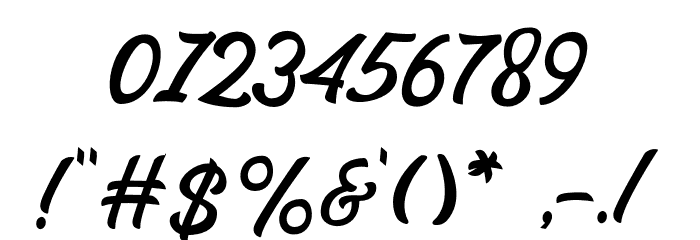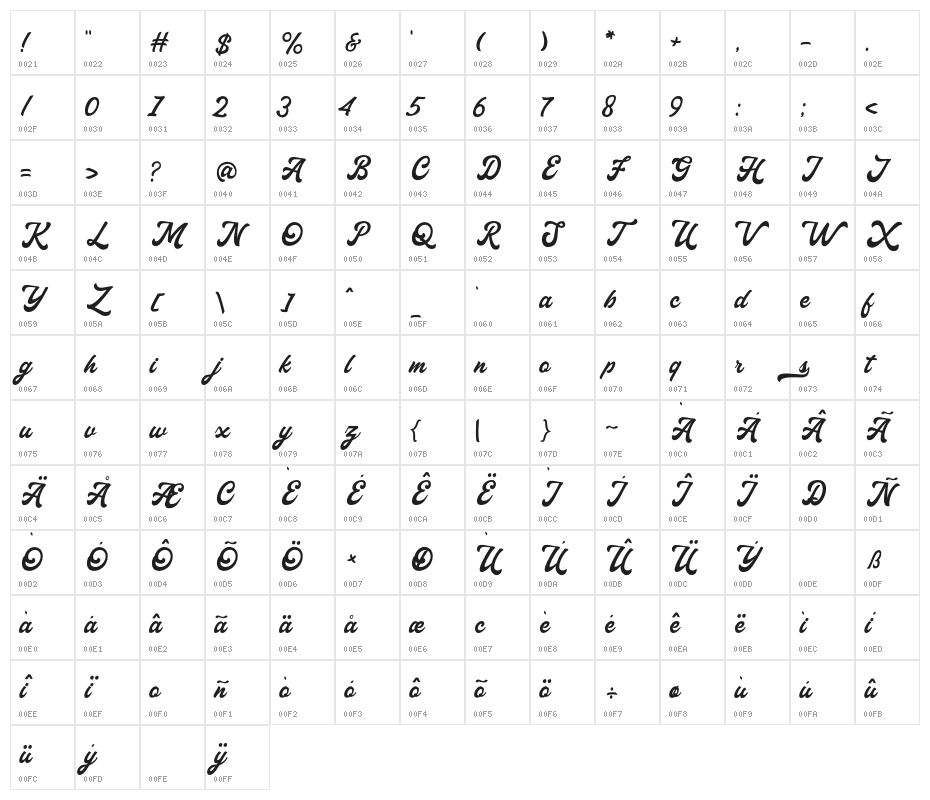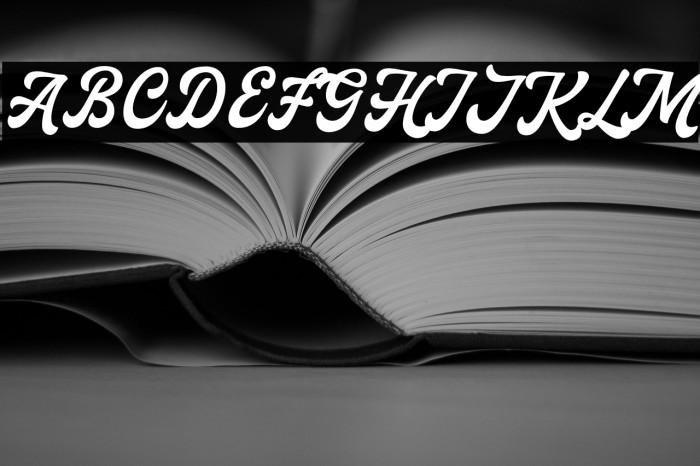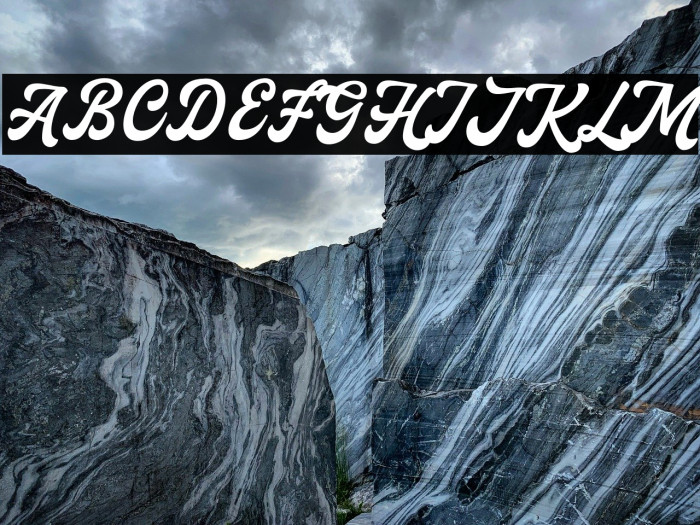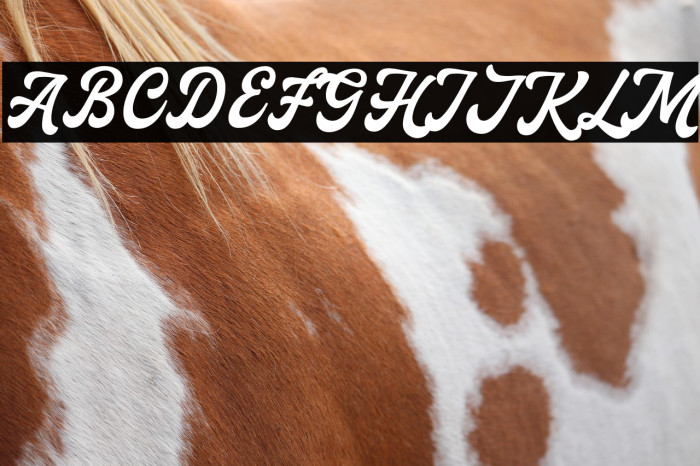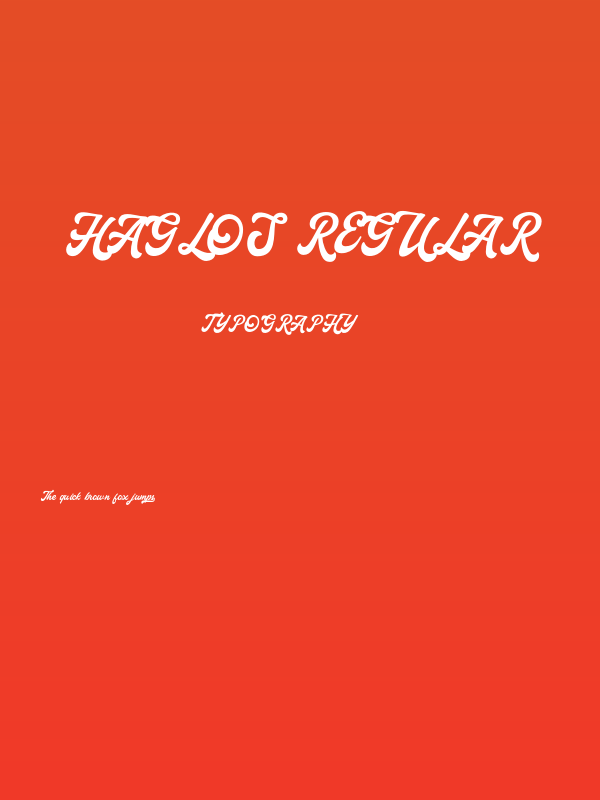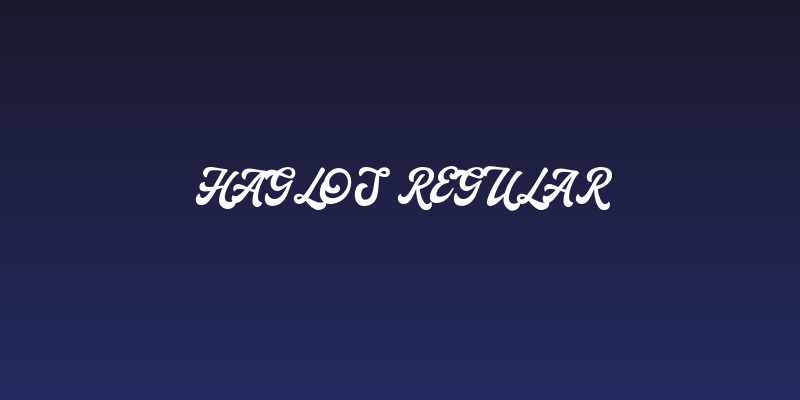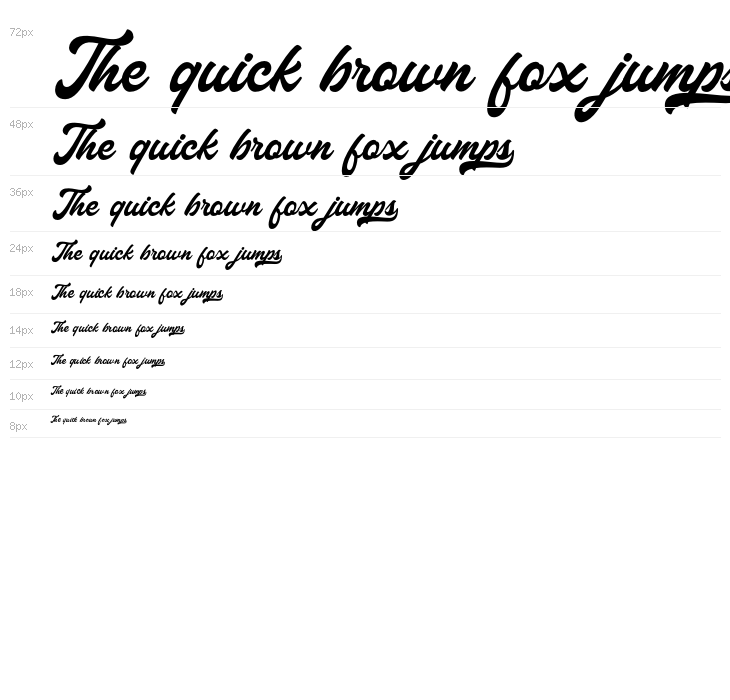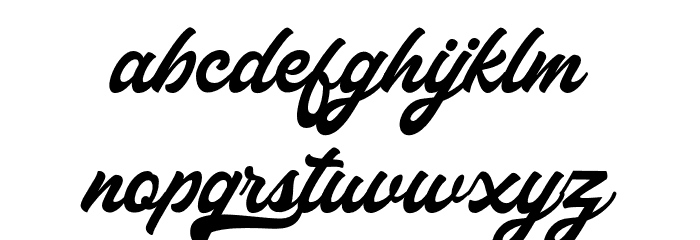
Haglos Regular Font
Haglos Regular Description
This font features a bold and flowing script style, characterized by its elegant and cursive letterforms. The uppercase letters are slightly more ornate, with sweeping curves and flourishes that add a touch of sophistication. The lowercase letters maintain a consistent flow, enhancing readability while retaining a stylish appearance. Numbers and special characters are designed to match the overall aesthetic, ensuring a cohesive look across all text. The font's bold weight and high contrast between thick and thin strokes make it stand out, ideal for creating eye-catching designs.
| Proposed Projects | Ideal for wedding invitations, branding, logos, and elegant packaging designs. |